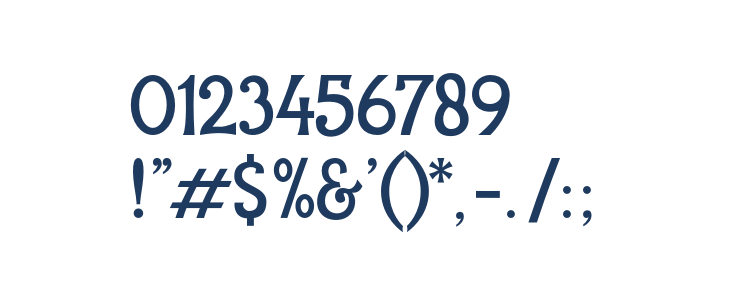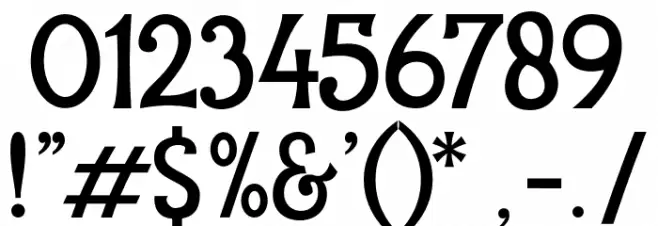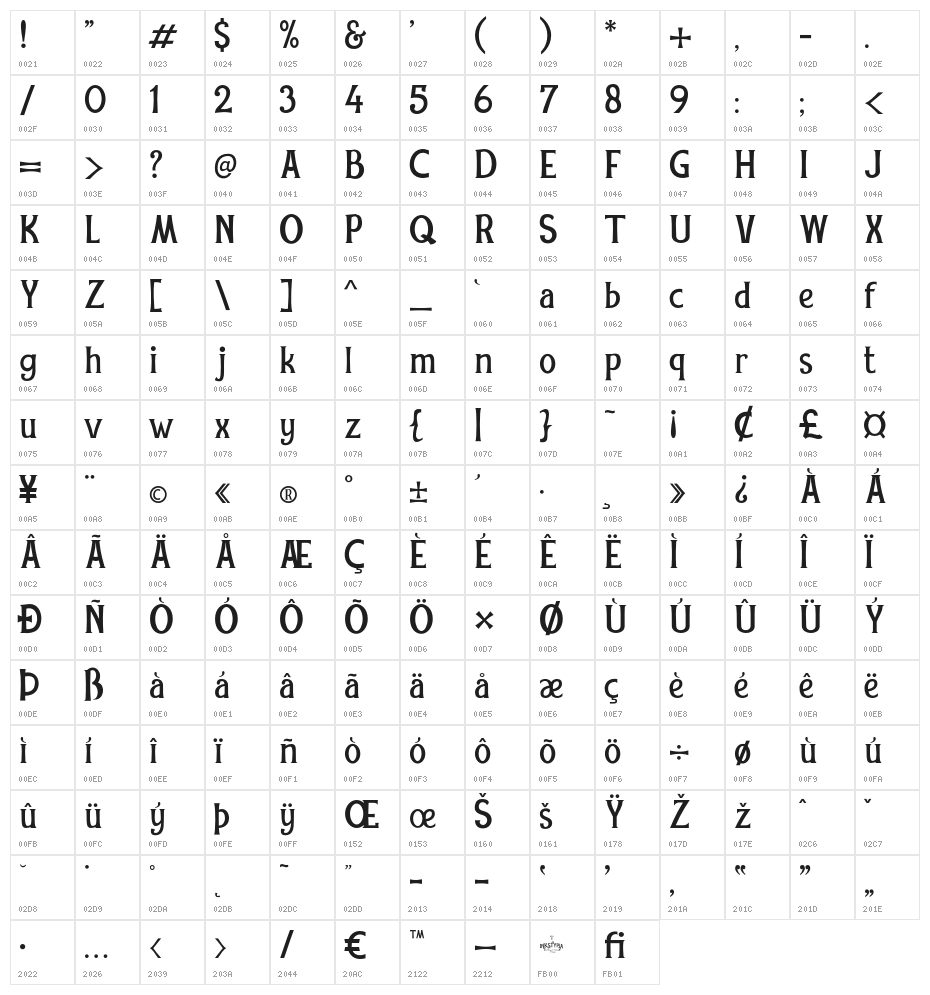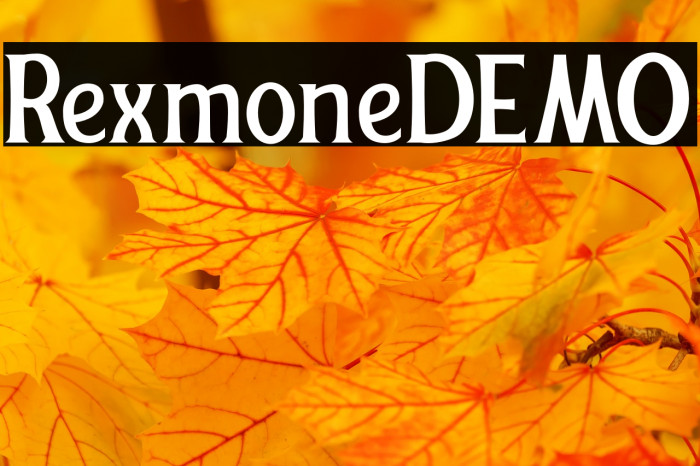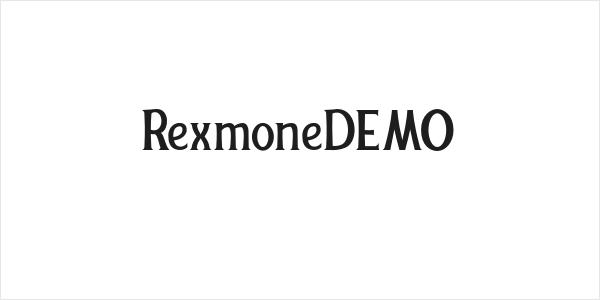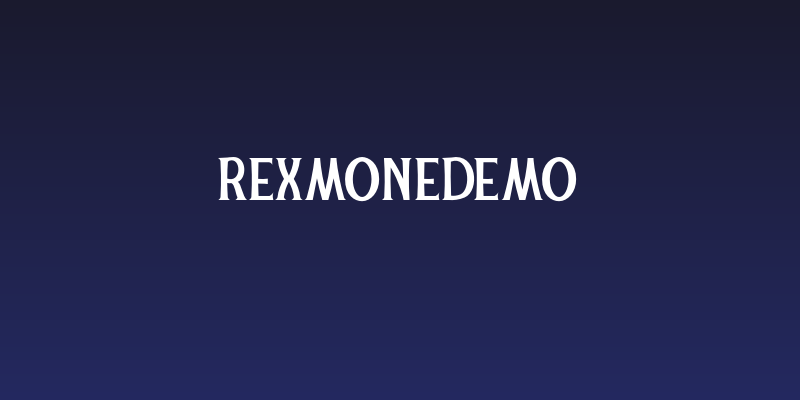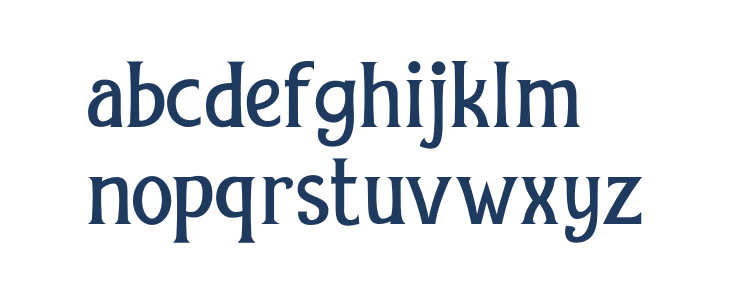
RexmoneDEMO Font
RexmoneDEMO Description
This font features a bold and dynamic style with a strong presence. The uppercase letters are tall and slightly condensed, giving a sense of authority and elegance. The lowercase letters maintain a consistent flow, with rounded edges that add a touch of softness to the overall design. The numerals are well-proportioned and align seamlessly with the alphabet, ensuring readability. Special characters are designed with the same attention to detail, providing a cohesive look across all elements. The font's unique character is highlighted by its high contrast in stroke thickness, which enhances its visual impact. This makes it suitable for a variety of applications where a strong and distinctive typeface is desired.